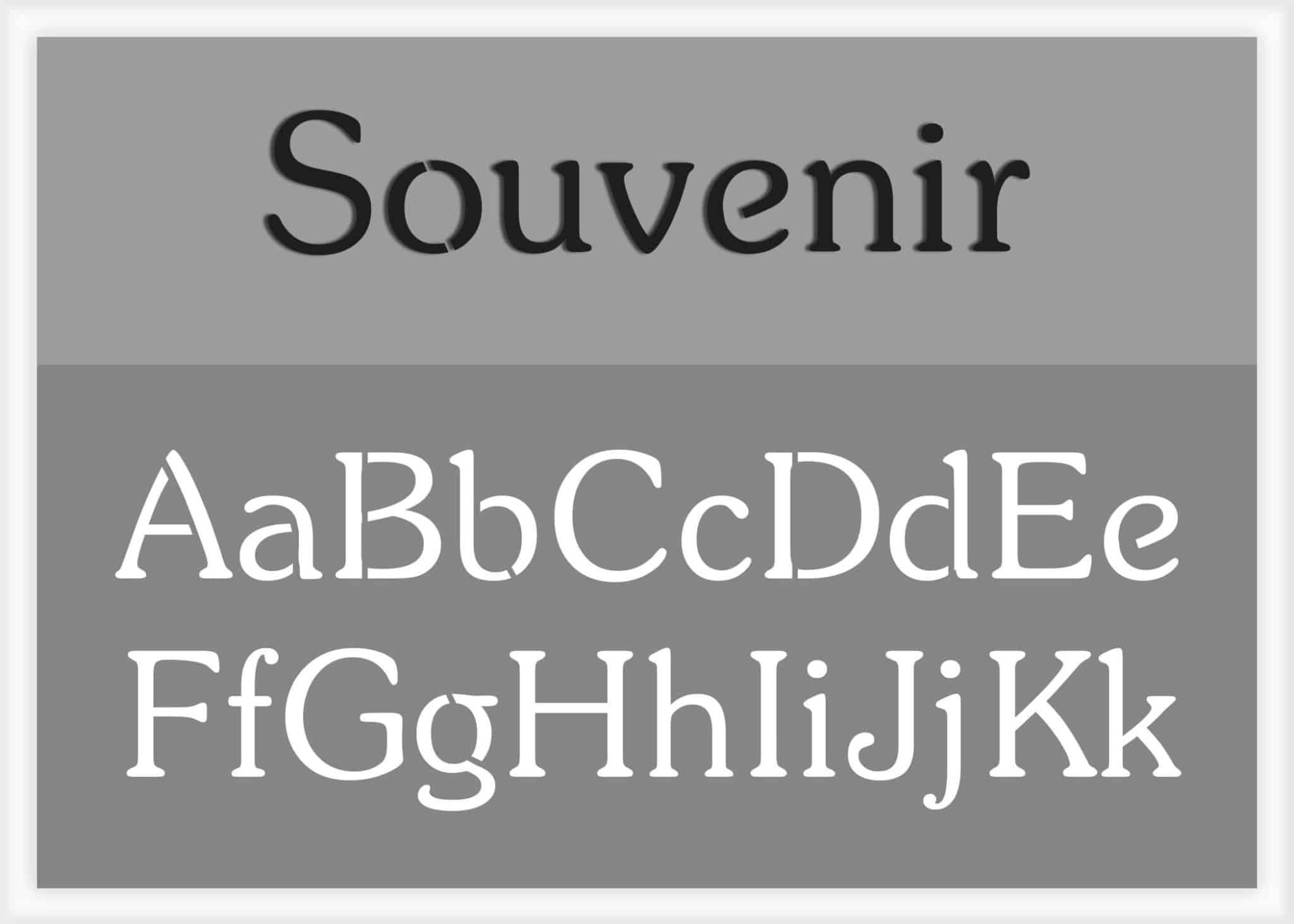
Souvenir Font Wikipedia . Souvenir is a serif typeface designed in 1914 by morris fuller benton for american type founders. It was later redrawn by ed benguiat in 1967 and then published by. Souvenir souvenir regular souvenir demi souvenir medium souvenir light souvenir bold italic souvenir normal souvenir lightitalic souvenir. Souvenir is a rounded serif typeface originally designed by morris fuller benton in 1914. Souvenir is a serif typeface designed in 1914 by morris fuller benton for american type founders.
Souvenir is a serif typeface designed in 1914 by morris fuller benton for american type founders. Souvenir is a rounded serif typeface originally designed by morris fuller benton in 1914. Souvenir is a serif typeface designed in 1914 by morris fuller benton for american type founders. It was later redrawn by ed benguiat in 1967 and then published by. Souvenir souvenir regular souvenir demi souvenir medium souvenir light souvenir bold italic souvenir normal souvenir lightitalic souvenir.
Souvenir Font Wikipedia Souvenir is a serif typeface designed in 1914 by morris fuller benton for american type founders. It was later redrawn by ed benguiat in 1967 and then published by. Souvenir is a serif typeface designed in 1914 by morris fuller benton for american type founders. Souvenir is a rounded serif typeface originally designed by morris fuller benton in 1914. Souvenir is a serif typeface designed in 1914 by morris fuller benton for american type founders. Souvenir souvenir regular souvenir demi souvenir medium souvenir light souvenir bold italic souvenir normal souvenir lightitalic souvenir.
ITC Souvenir Monospaced Pro Regular Fonts Souvenir Font Wikipedia It was later redrawn by ed benguiat in 1967 and then published by. Souvenir souvenir regular souvenir demi souvenir medium souvenir light souvenir bold italic souvenir normal souvenir lightitalic souvenir. Souvenir is a rounded serif typeface originally designed by morris fuller benton in 1914. Souvenir is a serif typeface designed in 1914 by morris fuller benton for american type founders.. Souvenir Font Wikipedia.
ITC Souvenir Std Font Download For Free, View Sample Text, Rating And Souvenir Font Wikipedia Souvenir souvenir regular souvenir demi souvenir medium souvenir light souvenir bold italic souvenir normal souvenir lightitalic souvenir. Souvenir is a serif typeface designed in 1914 by morris fuller benton for american type founders. It was later redrawn by ed benguiat in 1967 and then published by. Souvenir is a serif typeface designed in 1914 by morris fuller benton for american. Souvenir Font Wikipedia.
Souvenir Font Free Download Souvenir Font Wikipedia It was later redrawn by ed benguiat in 1967 and then published by. Souvenir is a serif typeface designed in 1914 by morris fuller benton for american type founders. Souvenir souvenir regular souvenir demi souvenir medium souvenir light souvenir bold italic souvenir normal souvenir lightitalic souvenir. Souvenir is a rounded serif typeface originally designed by morris fuller benton in 1914.. Souvenir Font Wikipedia.
Souvenir Font Free Download Free Fonts Like Souvenir Font Wikipedia It was later redrawn by ed benguiat in 1967 and then published by. Souvenir is a serif typeface designed in 1914 by morris fuller benton for american type founders. Souvenir souvenir regular souvenir demi souvenir medium souvenir light souvenir bold italic souvenir normal souvenir lightitalic souvenir. Souvenir is a serif typeface designed in 1914 by morris fuller benton for american. Souvenir Font Wikipedia.
ITC Souvenir DAYLIGHT FONTS Souvenir Font Wikipedia Souvenir is a serif typeface designed in 1914 by morris fuller benton for american type founders. Souvenir souvenir regular souvenir demi souvenir medium souvenir light souvenir bold italic souvenir normal souvenir lightitalic souvenir. Souvenir is a serif typeface designed in 1914 by morris fuller benton for american type founders. Souvenir is a rounded serif typeface originally designed by morris fuller. Souvenir Font Wikipedia.
Souvenir Font UpFonts Souvenir Font Wikipedia Souvenir is a serif typeface designed in 1914 by morris fuller benton for american type founders. Souvenir is a serif typeface designed in 1914 by morris fuller benton for american type founders. Souvenir souvenir regular souvenir demi souvenir medium souvenir light souvenir bold italic souvenir normal souvenir lightitalic souvenir. Souvenir is a rounded serif typeface originally designed by morris fuller. Souvenir Font Wikipedia.
Souvenir Font Free Download Souvenir Font Wikipedia Souvenir souvenir regular souvenir demi souvenir medium souvenir light souvenir bold italic souvenir normal souvenir lightitalic souvenir. Souvenir is a serif typeface designed in 1914 by morris fuller benton for american type founders. It was later redrawn by ed benguiat in 1967 and then published by. Souvenir is a serif typeface designed in 1914 by morris fuller benton for american. Souvenir Font Wikipedia.
Souvenir Font Free Download Souvenir Font Wikipedia Souvenir is a rounded serif typeface originally designed by morris fuller benton in 1914. Souvenir is a serif typeface designed in 1914 by morris fuller benton for american type founders. Souvenir is a serif typeface designed in 1914 by morris fuller benton for american type founders. Souvenir souvenir regular souvenir demi souvenir medium souvenir light souvenir bold italic souvenir normal. Souvenir Font Wikipedia.